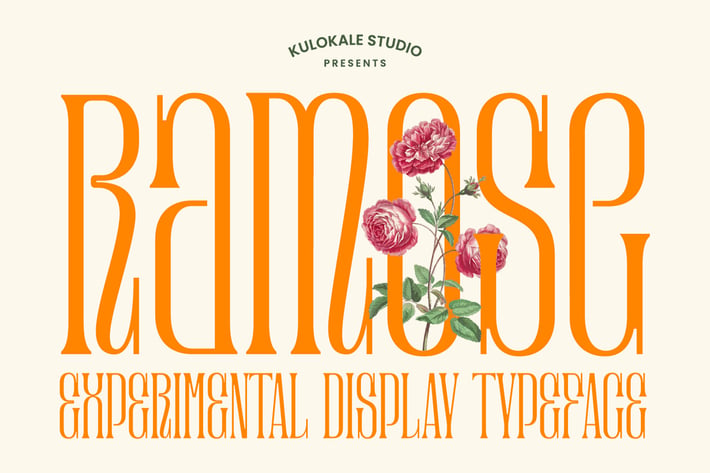
Ramose - Experimental Classic Display Serif Font
Ramose is a experimental contemporary and elegant vintage display serif font. Ramose is well-suited for advertising, branding, logotypes, packaging, titles, headlines and editorial design. This font comes in four styles, Regular, Oblique, Outline and Oblique Version.